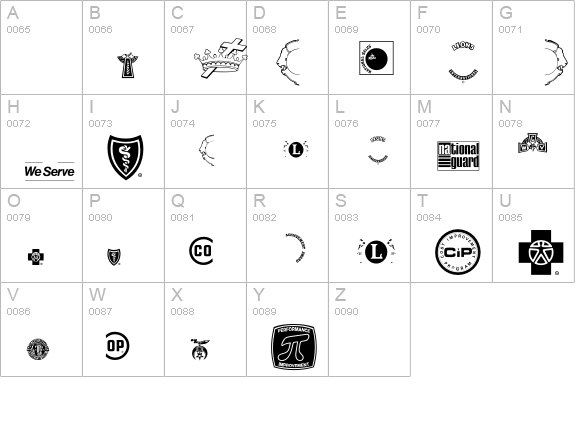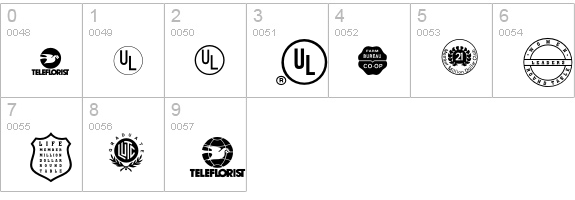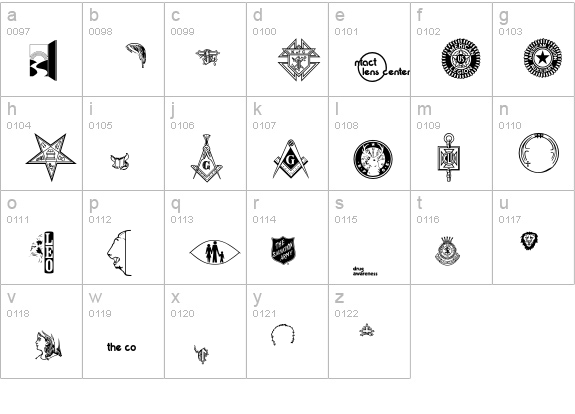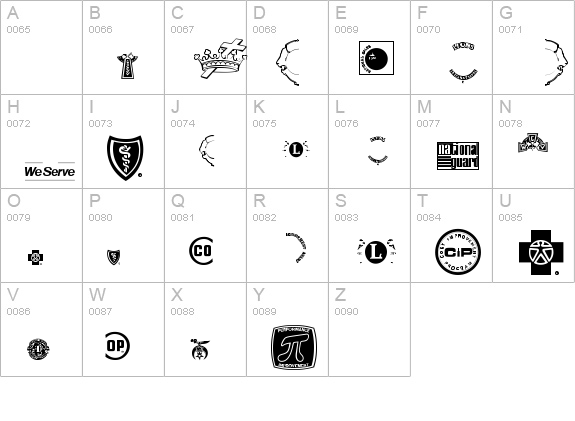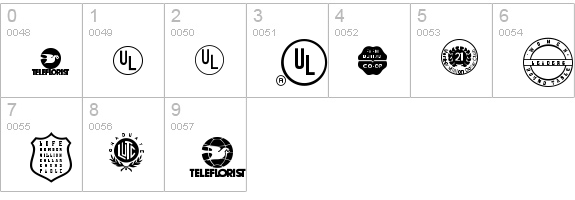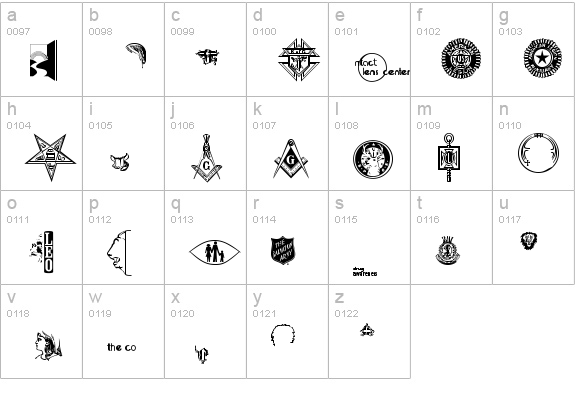
LogosServiceP02 Font Details
LogosServiceP02 is a modern and elegant font that exudes professionalism and sophistication. With clean lines and a sleek design, this versatile typeface is perfect for a wide range of projects, from branding to editorial design. The font features a unique blend of classic and contemporary elements, making it suitable for both traditional and modern applications. What sets LogosServiceP02 apart is not only its aesthetic appeal but also its accessibility. This font is free to download at FontsMarket.com, making it a valuable resource for designers and creatives looking to elevate their work without breaking the bank. Whether you're working on a logo, website, poster, or any other design project, LogosServiceP02 is sure to make a statement and leave a lasting impression.